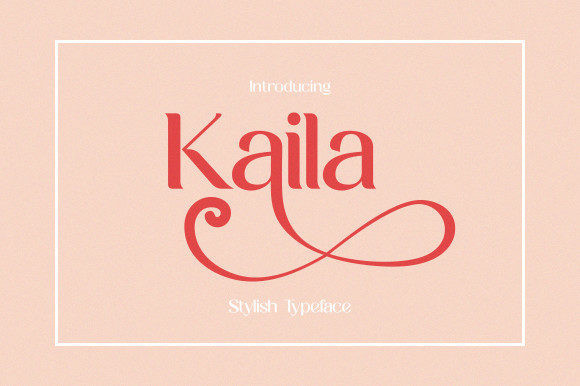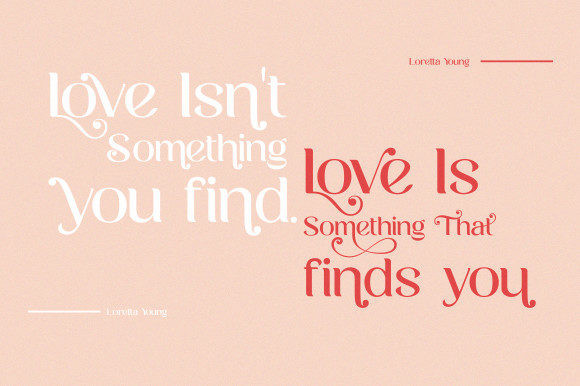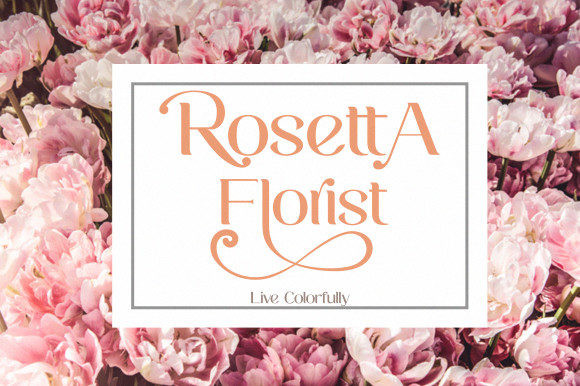
Kaila Font
Kaila is a bold yet incredibly dainty and distinct serif font. Its elegance and simplicity make this font look absolutely stunning on a variety of design ideas, both formal and informal. Kaila is PUA encoded which means you can access all of the glyphs and swashes with ease!